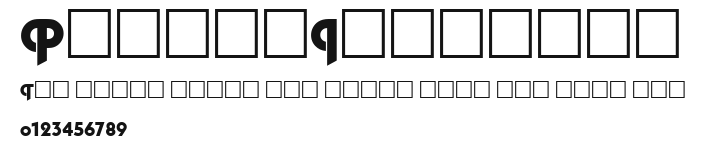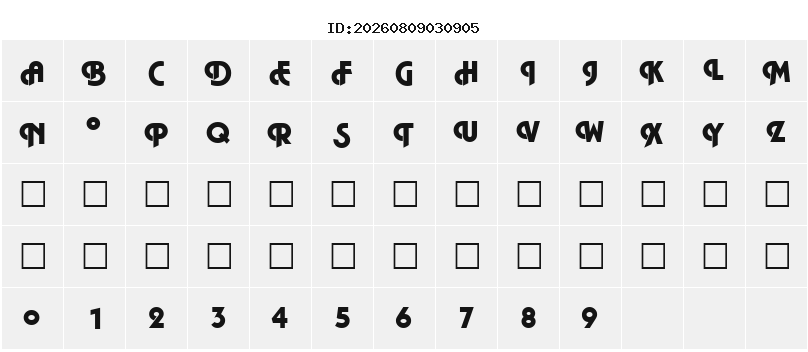
About PiazzaInitials.ttf
PiazzaInitials.ttf is a modern, elegant sans-serif font designed for ultimate readability and visual harmony. Perfect for branding, headlines, web design, and print materials.